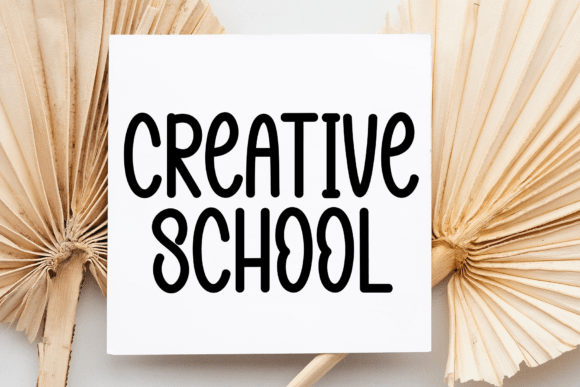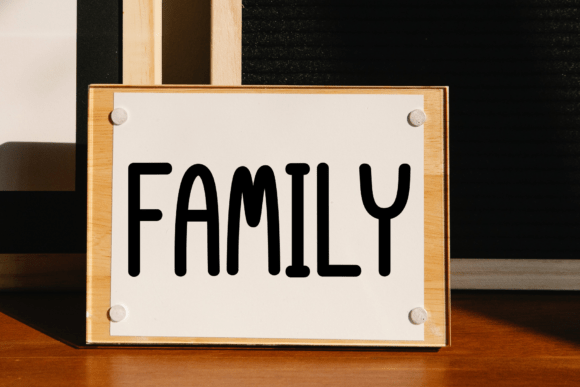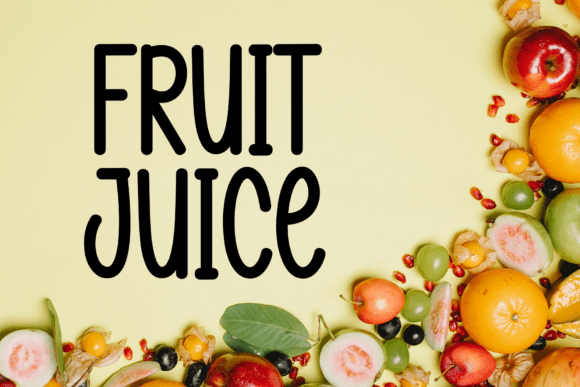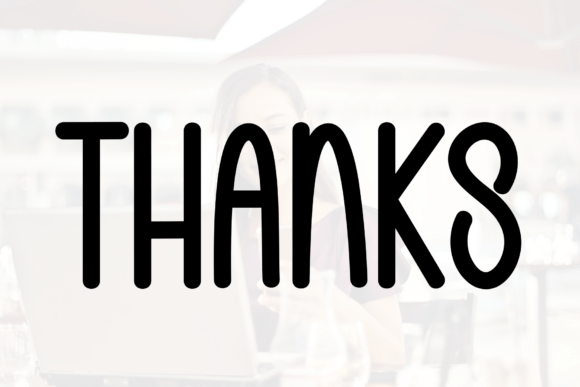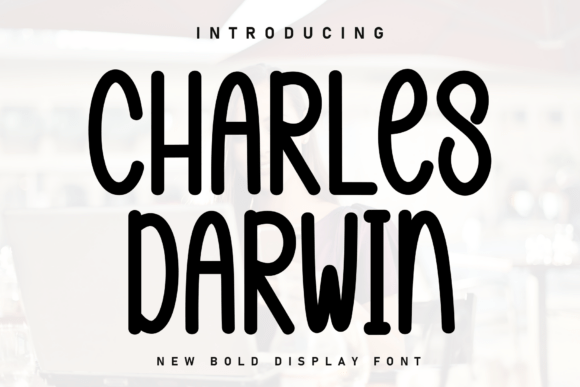
Introducing Charles Darwin Font: A Charming Handwritten Delight
Are you on the lookout for a font that exudes warmth, comfort, and a touch of perfection? Look no further than Charles Darwin Font, a beautiful handwritten typeface that is sure to capture your heart. With its smooth strokes and organic lines, this font is designed to evoke a relaxed atmosphere, making it perfect for a wide range of design projects.
The Characteristics of Charles Darwin Font
Charles Darwin Font is a charming handwritten font that boasts a unique set of characteristics. Its smooth strokes and organic lines give it a natural, effortless feel that is both soothing and inviting. The font’s relaxed atmosphere makes it perfect for designs that require a personal touch, such as branding, invitations, and social media graphics.
One of the best things about Charles Darwin Font is its versatility. Its charming and approachable nature makes it suitable for a wide range of design projects, including:
- Branding: Use Charles Darwin Font to create a unique and memorable brand identity that resonates with your target audience.
- Invitations: Add a personal touch to your invitations, whether it’s for a wedding, birthday party, or baby shower.
- Social Media Graphics: Create engaging social media graphics that showcase your brand’s personality and style.
- Packaging: Use Charles Darwin Font to create eye-catching packaging that stands out on store shelves.
- Stationery: Add a touch of elegance to your stationery, including business cards, letterheads, and envelopes.
Why Designers and Crafters Love Charles Darwin Font
Designers and crafters alike are drawn to Charles Darwin Font for its unique combination of style and versatility. Here are just a few reasons why:
- Easy to Read: Charles Darwin Font is clear and easy to read, making it perfect for body text and headlines.
- Highly Customizable: The font comes with a range of customization options, allowing you to tailor it to your specific design needs.
- Unique and Memorable: Charles Darwin Font is a one-of-a-kind typeface that is sure to make your designs stand out from the crowd.
Tips for Using Charles Darwin Font
To get the most out of Charles Darwin Font, here are a few tips to keep in mind:
- Pair it with Other Fonts: Combine Charles Darwin Font with other fonts to create a unique and visually appealing typography.
- Experiment with Colors: Try out different color combinations to find the perfect match for your design.
- Use it for Headlines and Body Text: Charles Darwin Font is suitable for both headlines and body text, making it a versatile choice for a wide range of design projects.
In conclusion, Charles Darwin Font is a charming handwritten font that is perfect for designers and crafters looking to add a touch of warmth and personality to their designs. With its smooth strokes, organic lines, and relaxed atmosphere, this font is sure to capture your heart. Whether used for branding, invitations, or social media graphics, Charles Darwin Font is a versatile and memorable typeface that is sure to make your designs stand out from the crowd.